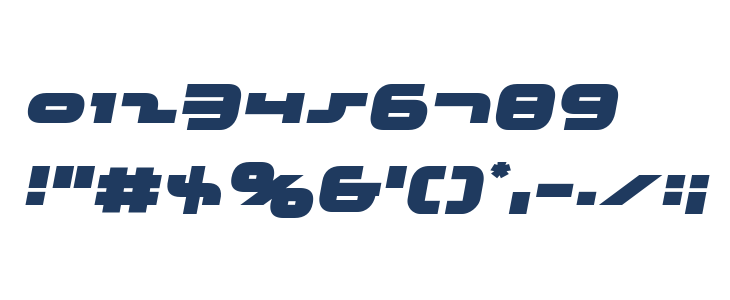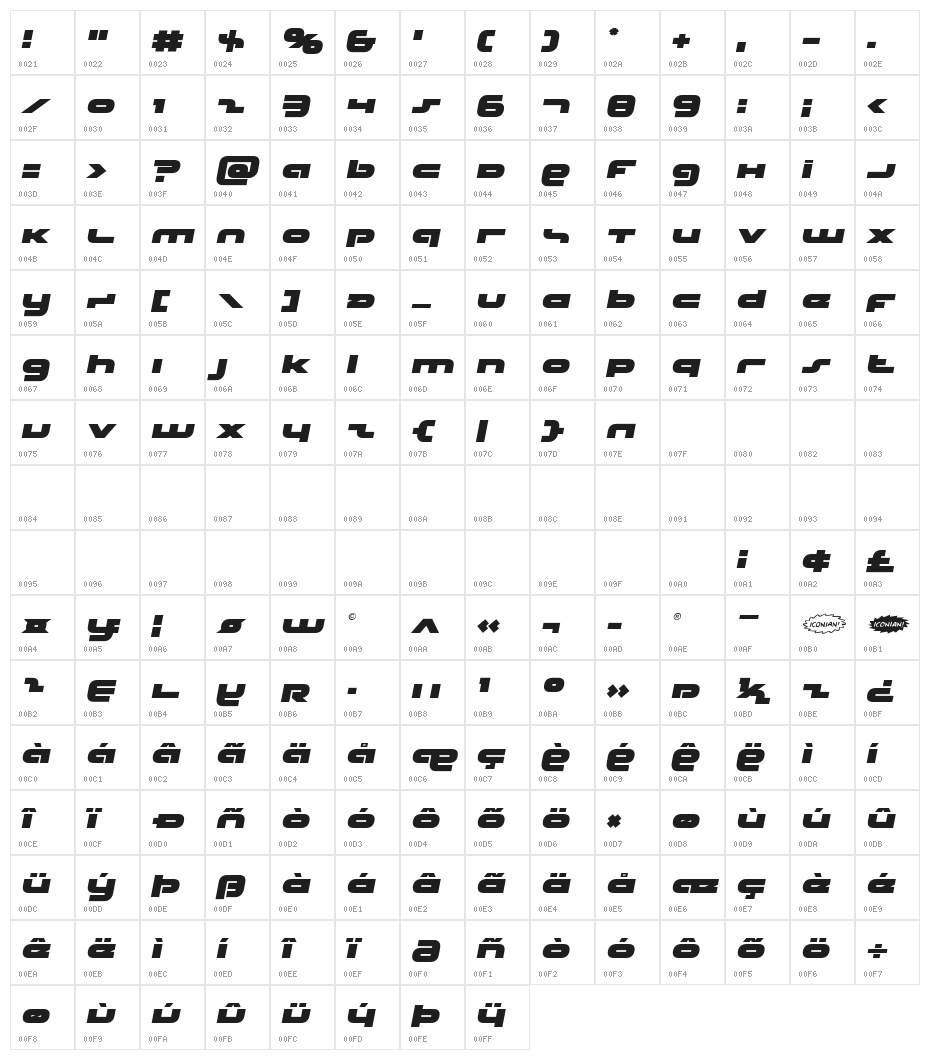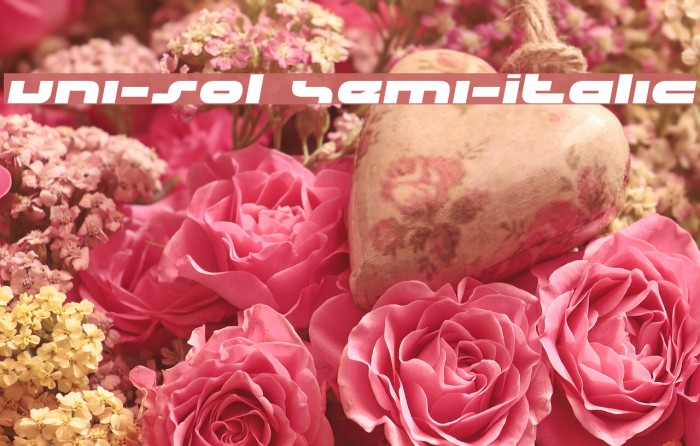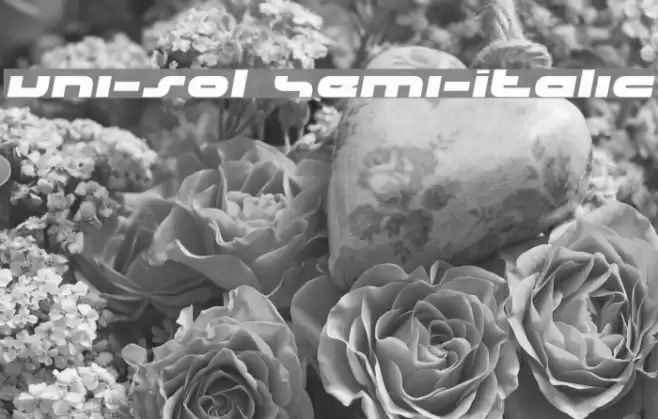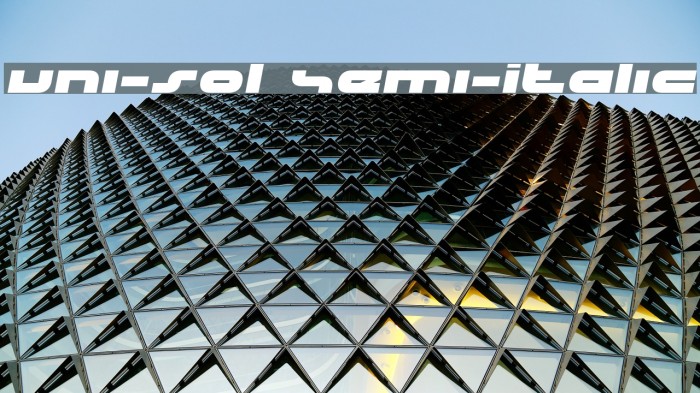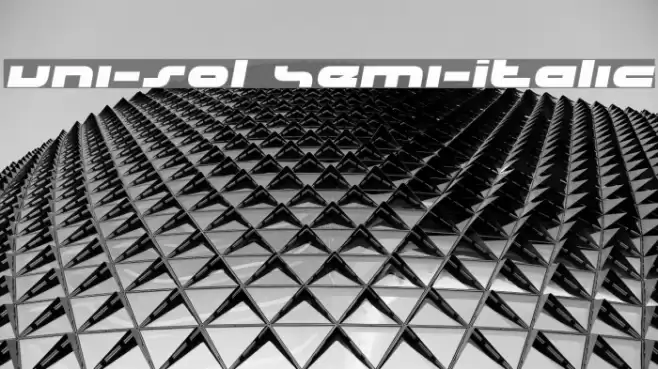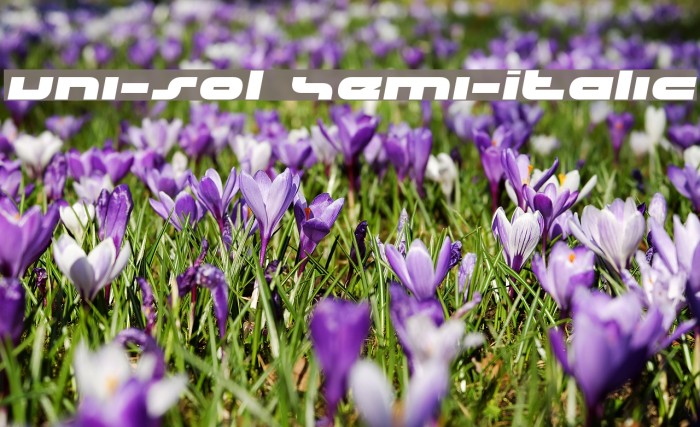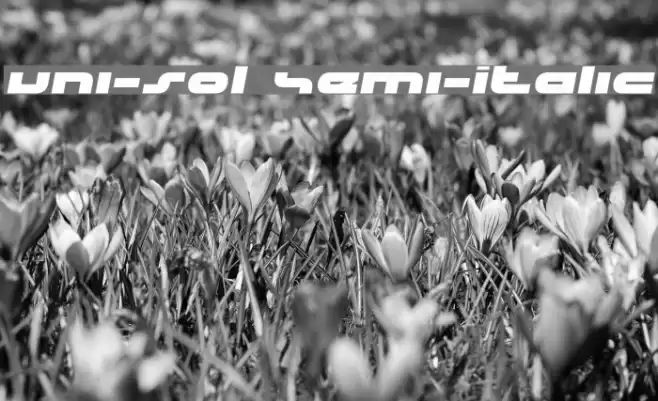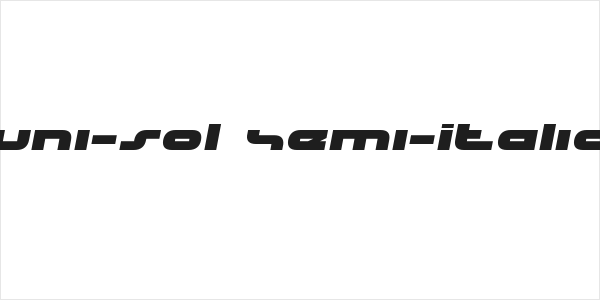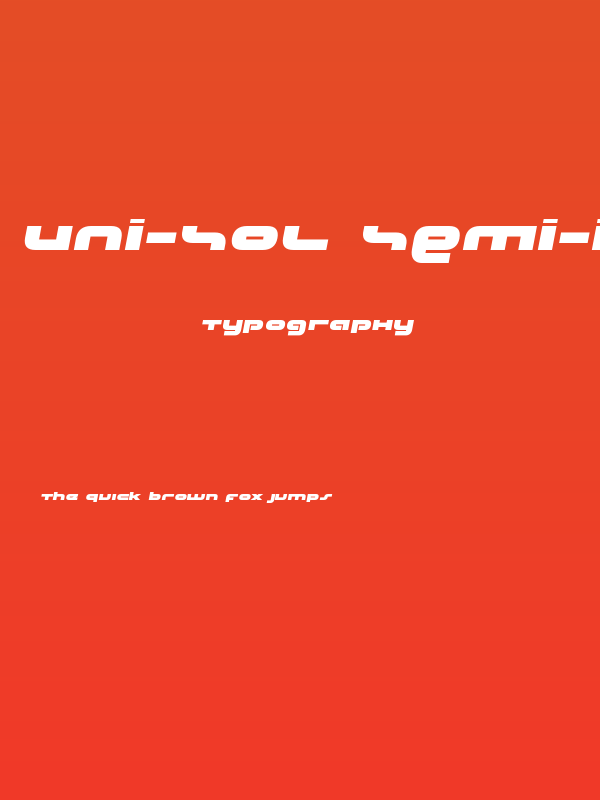
uni-sol Semi-Italic Font
uni-sol Semi-Italic Description
This font features a bold and dynamic style with a semi-italic slant, giving it a sense of motion and energy. The characters are wide and have a strong presence, making them suitable for impactful designs. The strokes are thick and consistent, contributing to a high contrast appearance. The overall design is modern and sleek, with a futuristic touch that makes it stand out. The spacing between characters is tight, enhancing the compact and cohesive look of the text.
| Use Case | Logos, Headlines |
| Proposed Projects | Ideal for sports branding, tech logos, and dynamic advertising campaigns. |